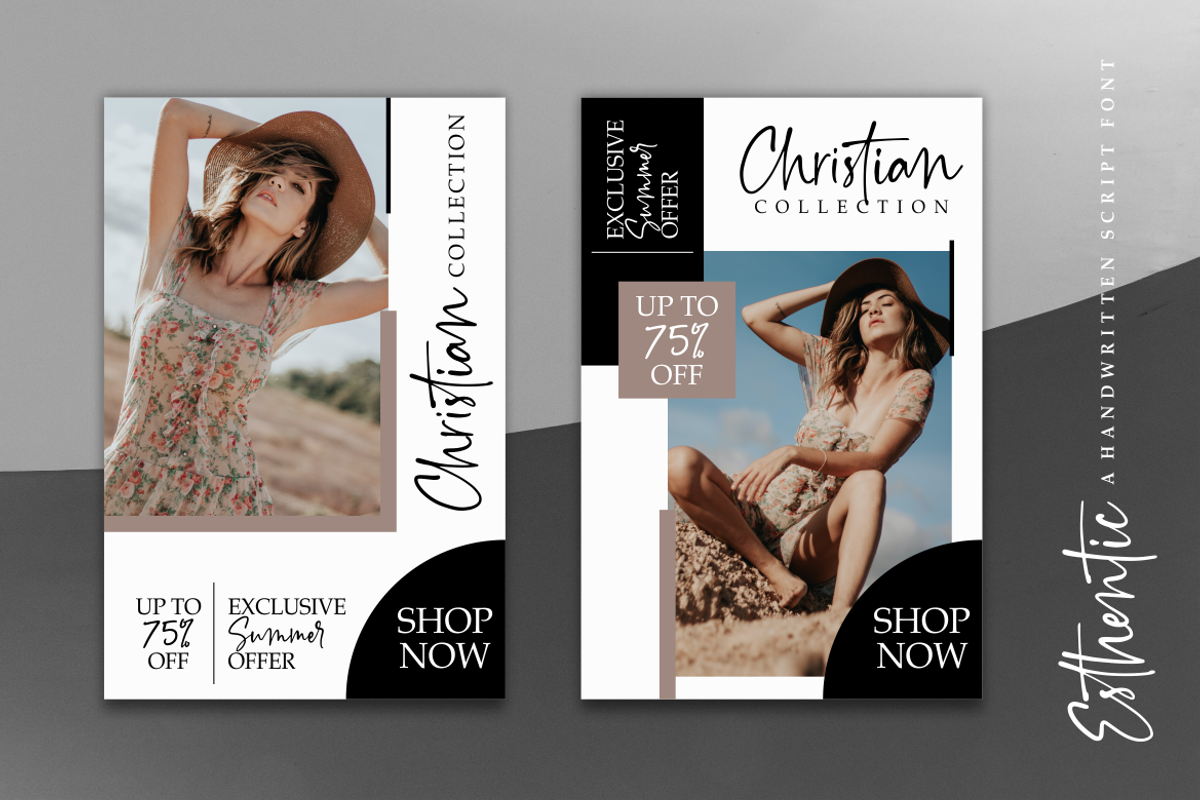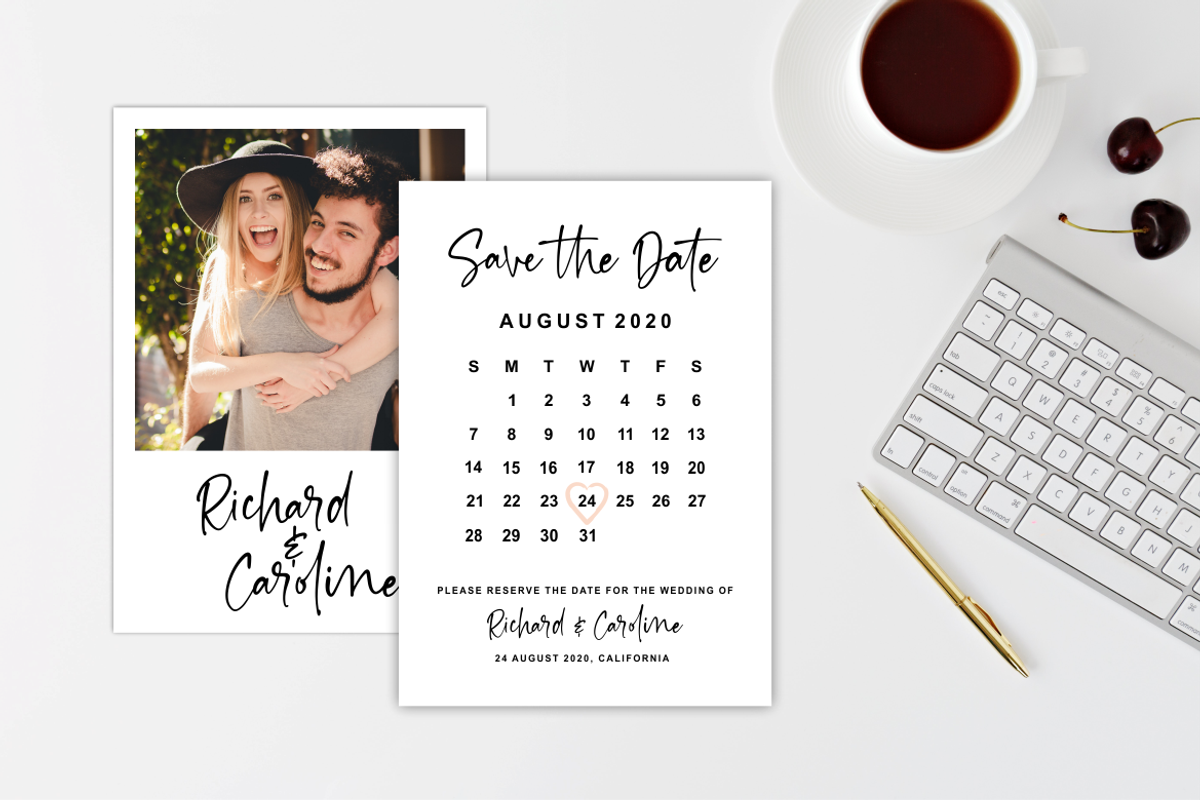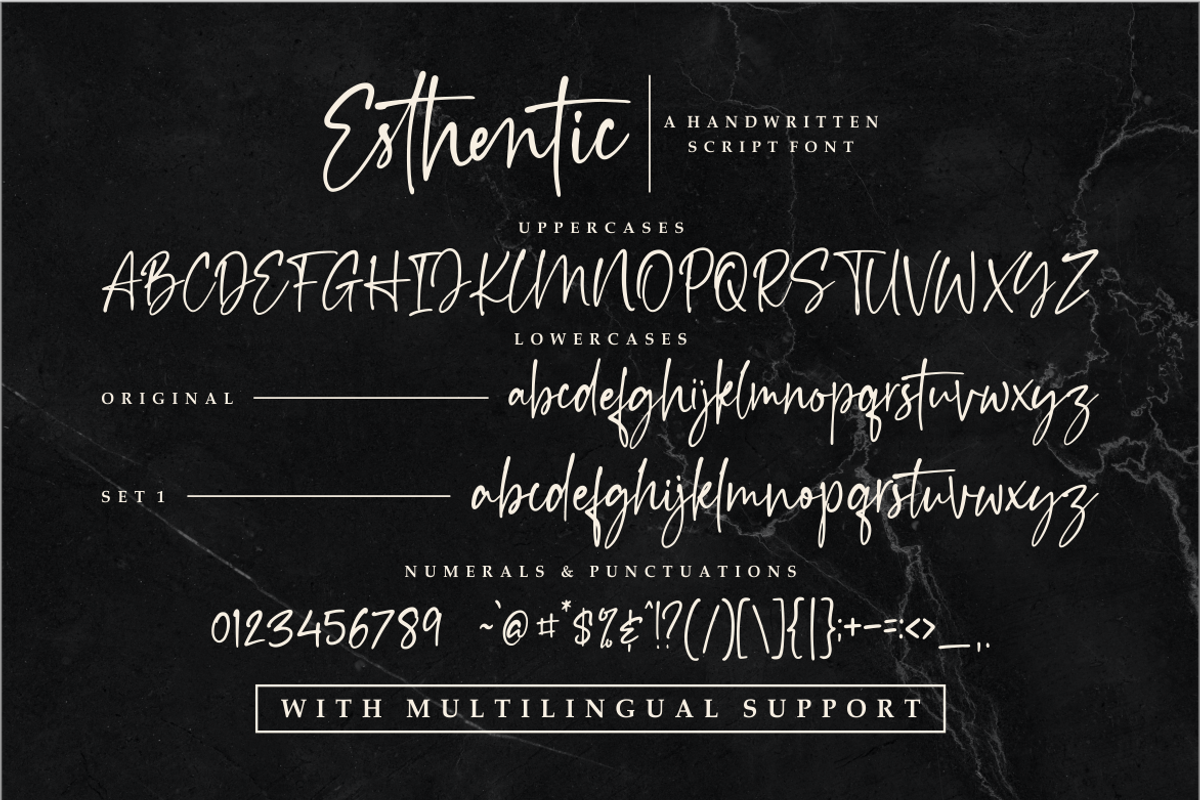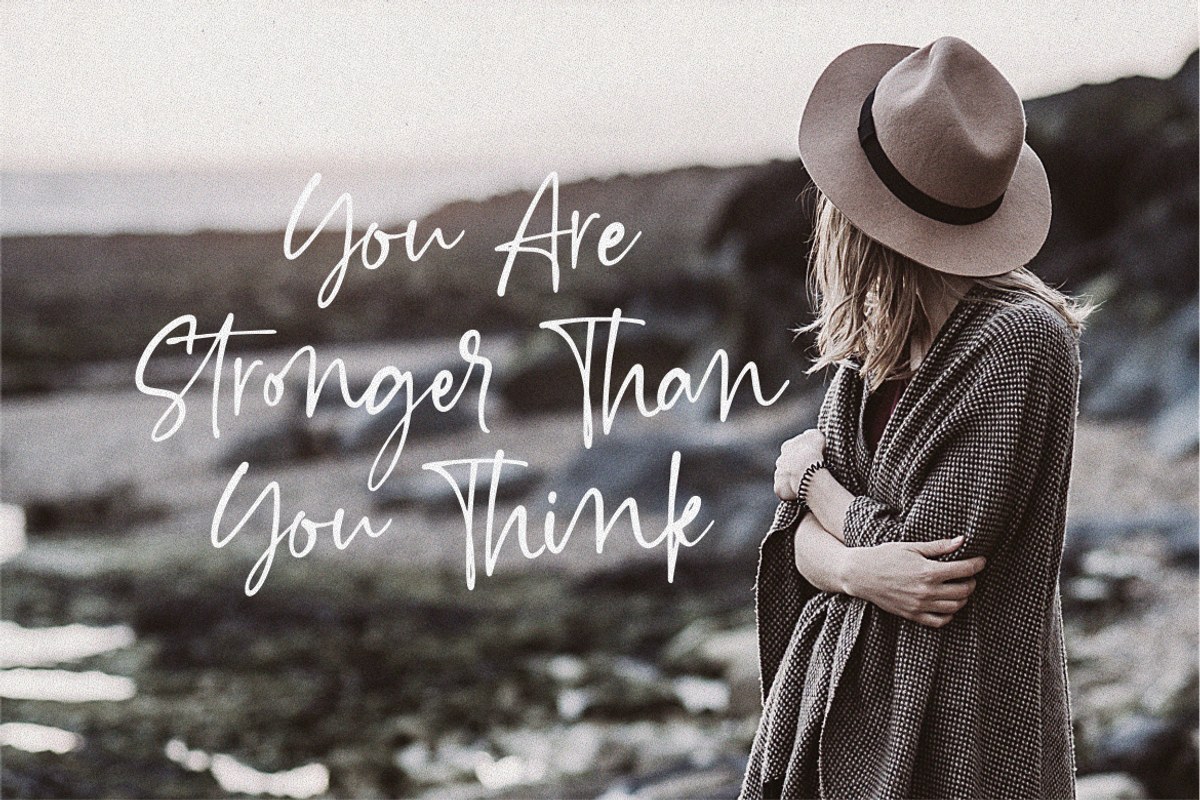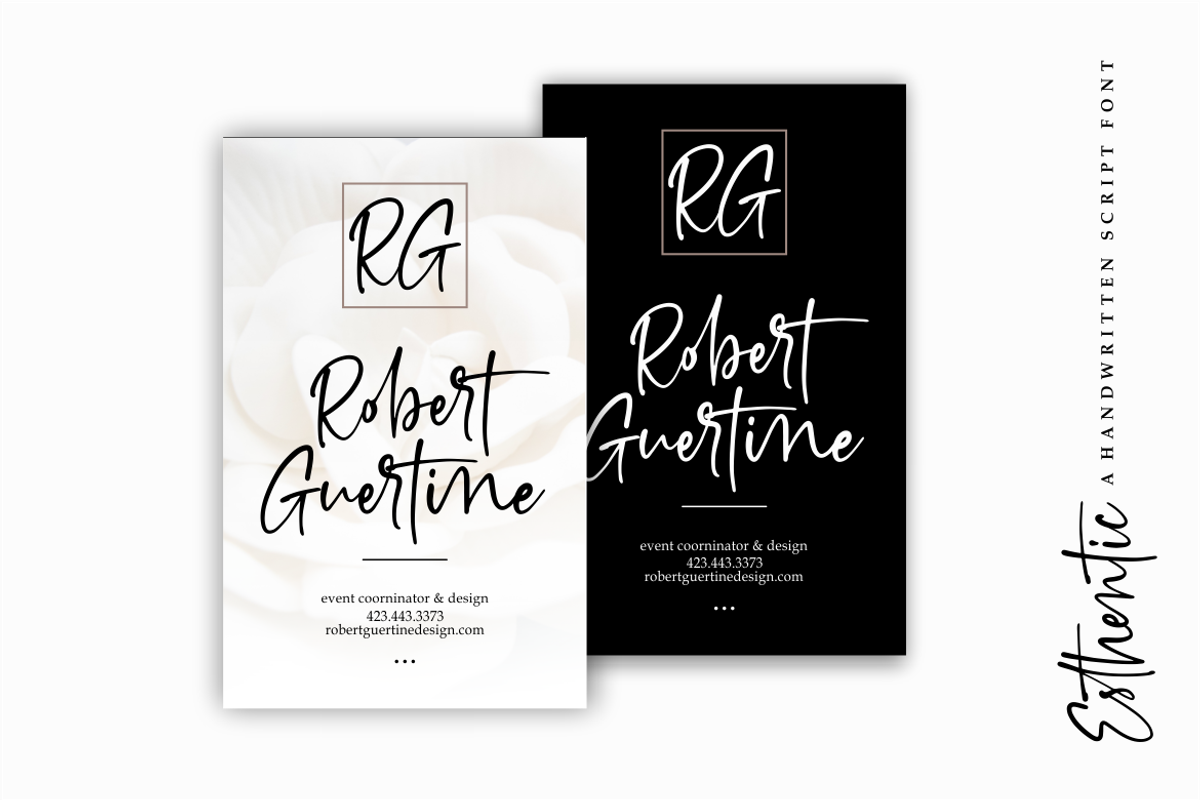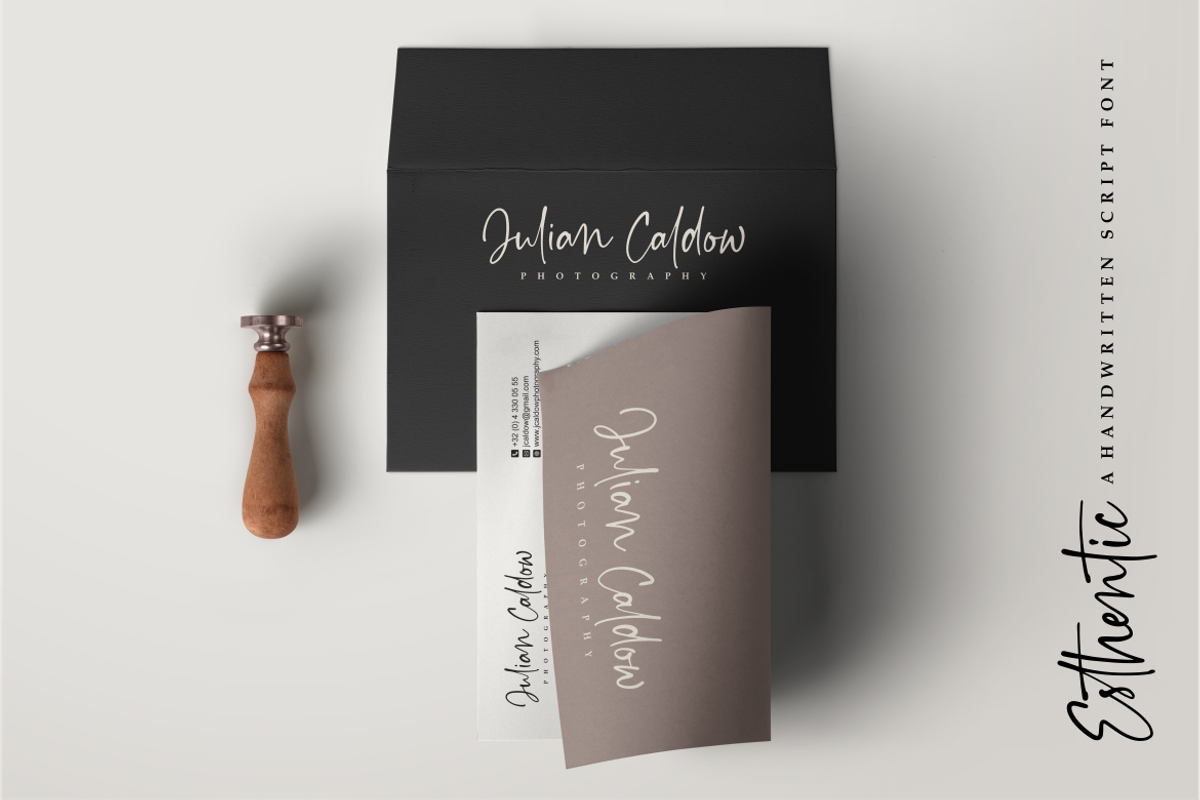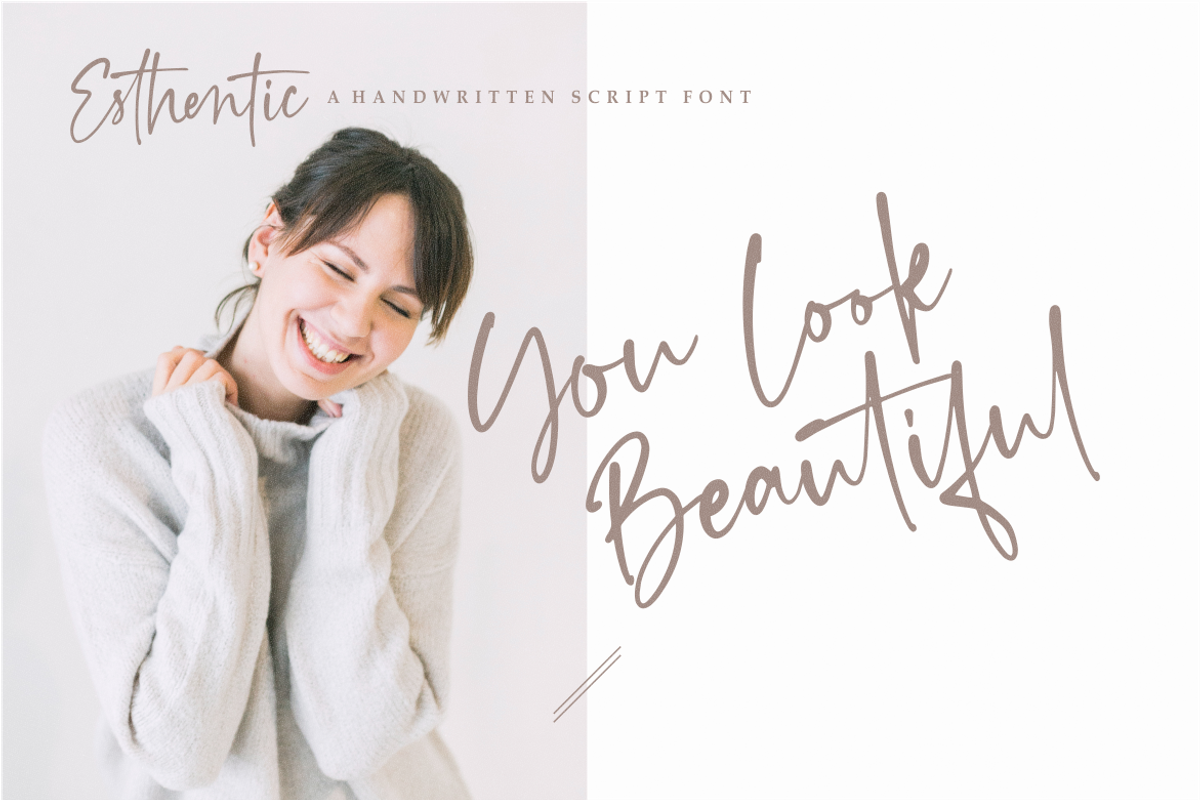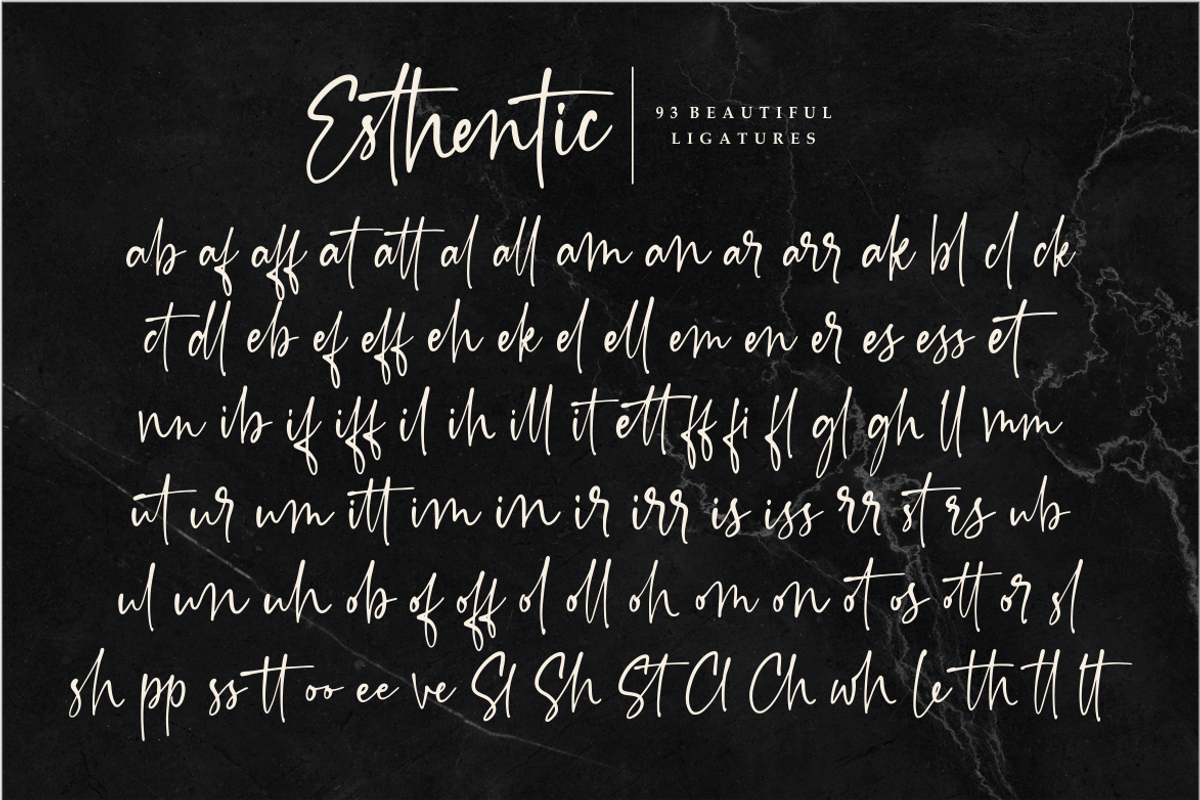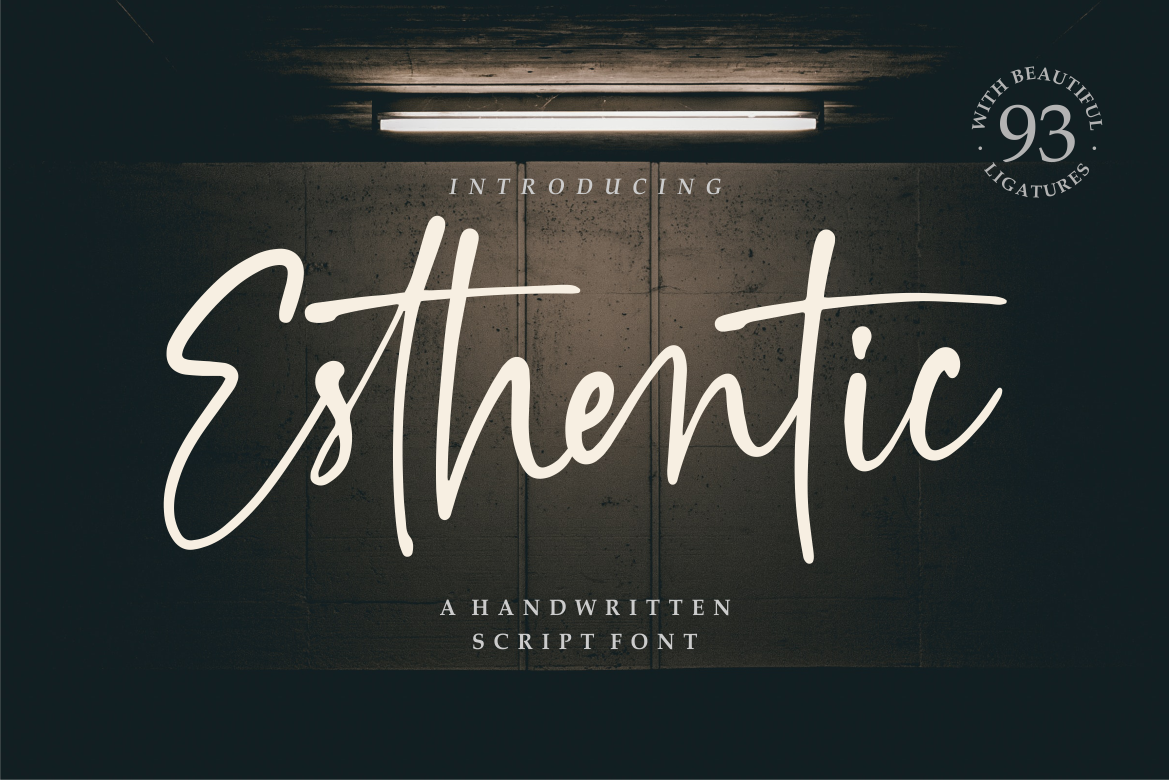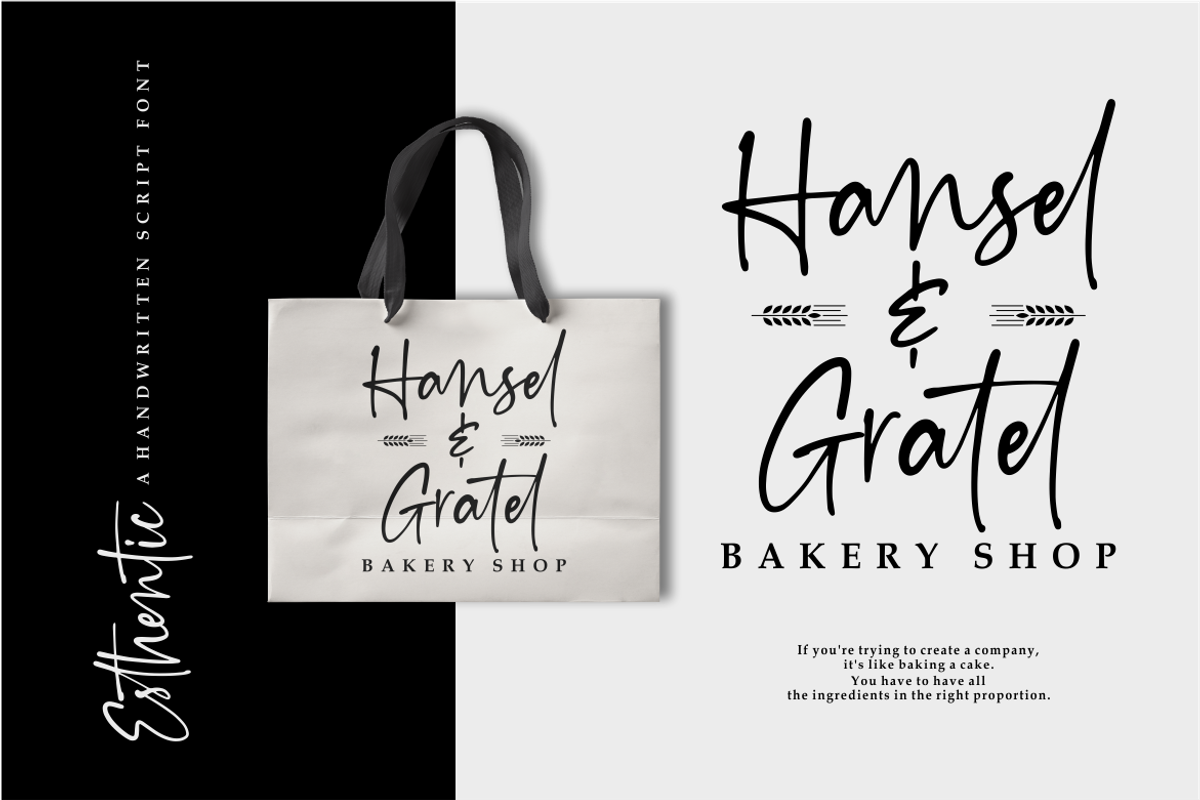
Esthentic a Handwritten Script Font
Hi,,, Introducing Esthentic a handwritten script font!!!
A typeface script font with lowercase letters alternatives and 93 ligatures to complete your needs. This font is very good with multilingual support. With built in Opentype features, this script comes to life as if you are writing it yourself.
I make this font with lovely so make this font look natural, modern, classic and elegant, very suitable to make a branding, magazine, fashion, quotes, logo, packaging, and other.
- Ligature and Alternative